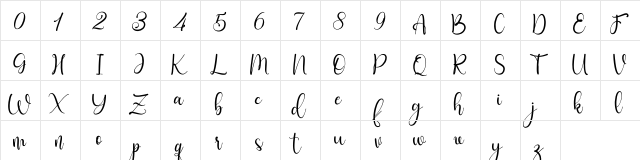
Fabulous Regular Font Preview
Fabulous Regular
Design Context for Fabulous Typeface
Fabulous is a composed and adaptable typeface that performs quietly and consistently across a wide range of design contexts.